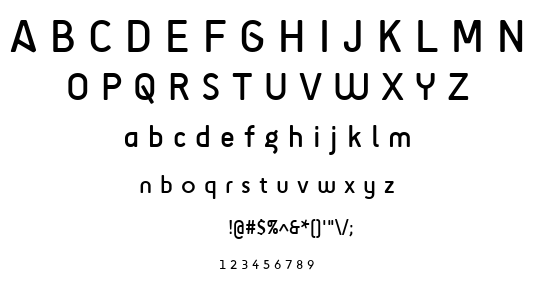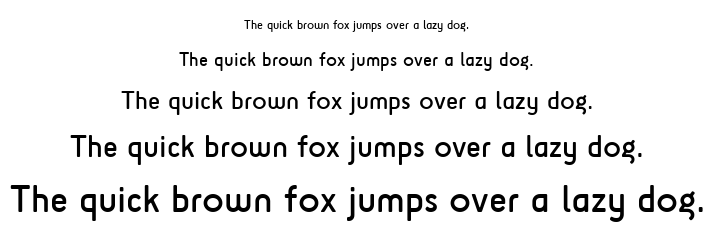
Designed by Finnish Designer Tomi Haaparanta in collaboration with Flyerzone, this font is perfect for use on products of all sizes, and has been designed with the ability to remain legible in even the longest strings of text.